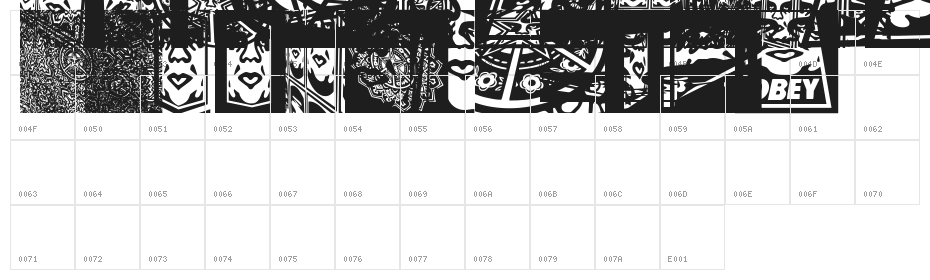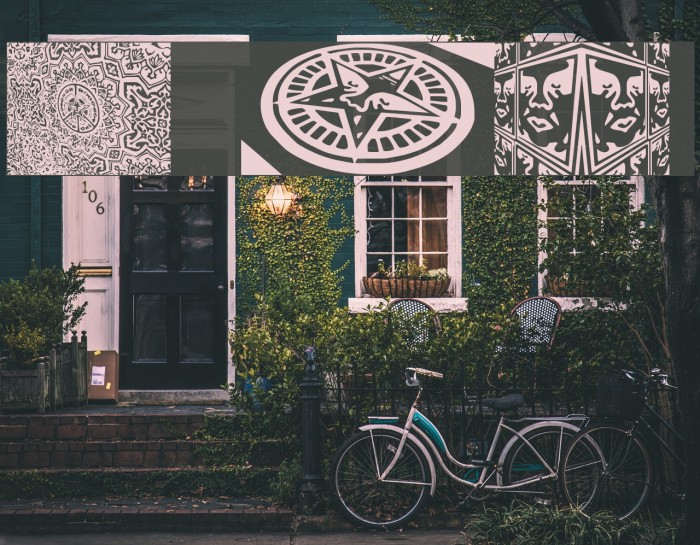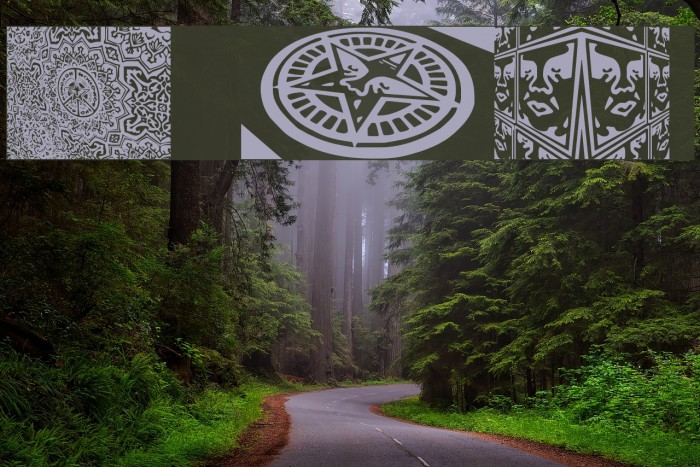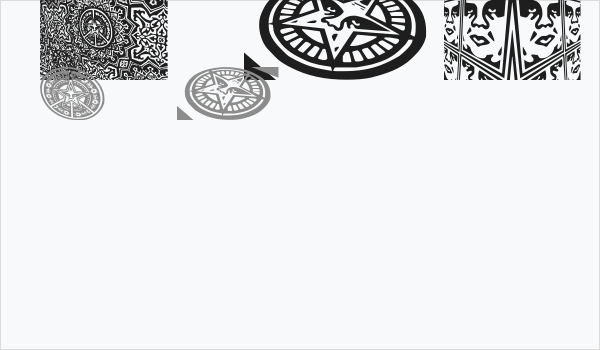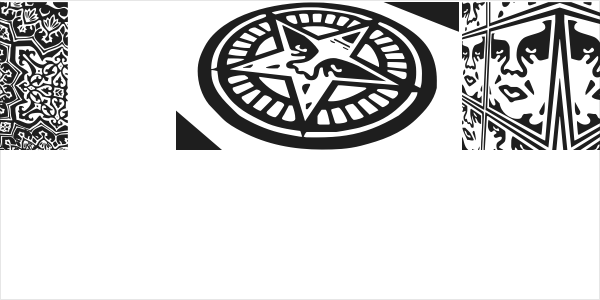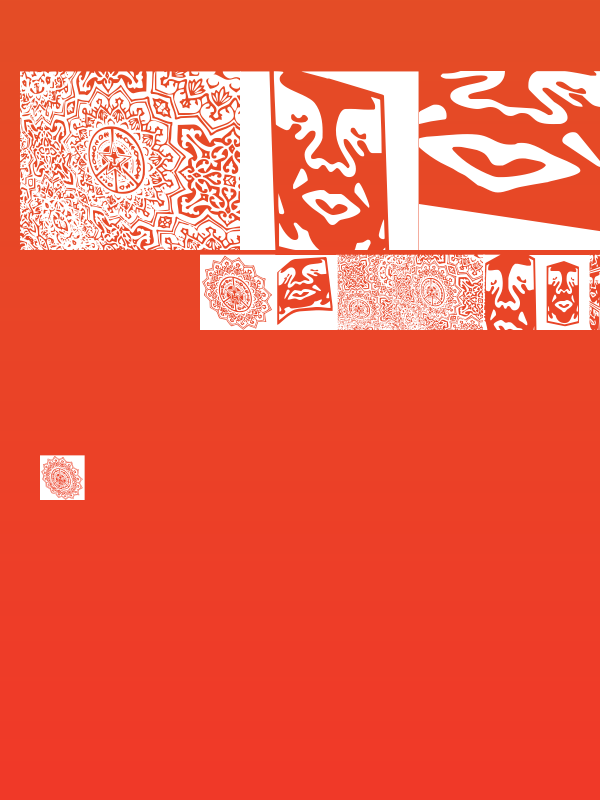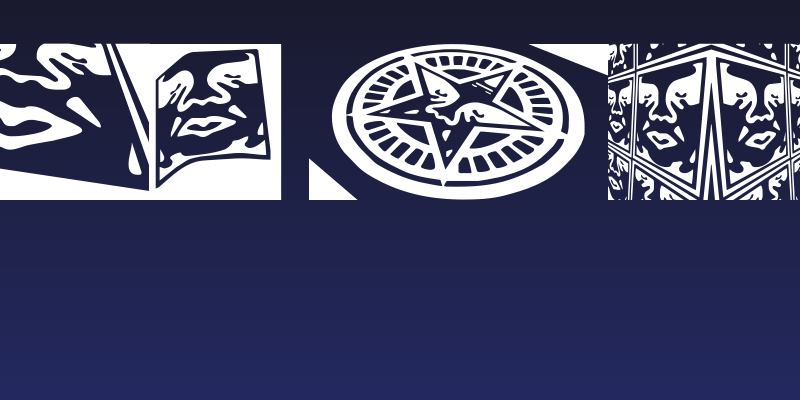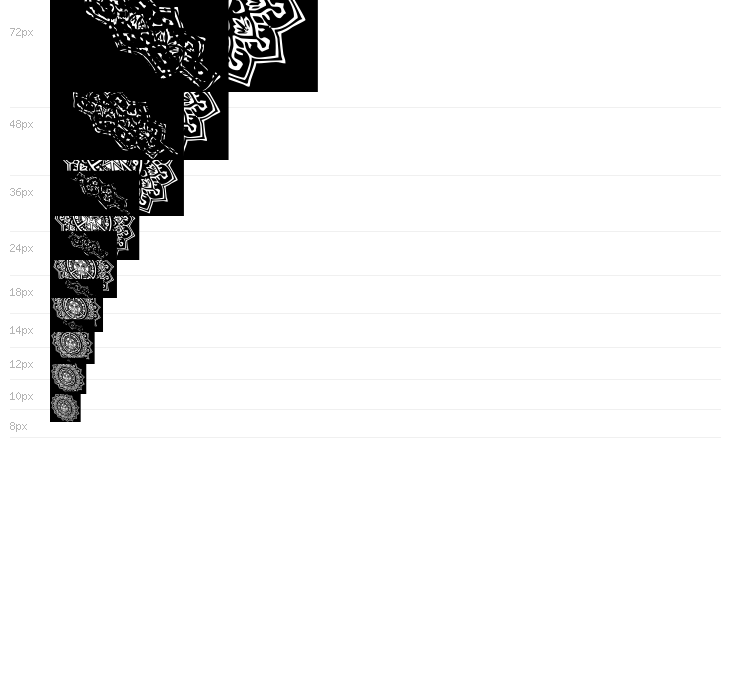
Obey3DAlt Font
Obey3DAlt Description
This font is a highly decorative and artistic typeface, featuring intricate designs and patterns within each character. Each letter is uniquely crafted with detailed illustrations, often incorporating faces, geometric shapes, and abstract motifs. The style is bold and visually striking, making it ideal for artistic and expressive projects. The characters are not uniform in style, with each one presenting a different artistic theme, which adds to the overall eclectic and avant-garde feel of the font. This typeface is not suitable for body text due to its complexity but can be effectively used in creative designs where the text serves as a visual element.
| Overall Style | Avant-garde, Artistic |
| Use Case | Logos, Posters, Artistic Designs |
| Proposed Projects | Ideal for posters, album covers, art projects, and any design requiring a bold, artistic statement. |